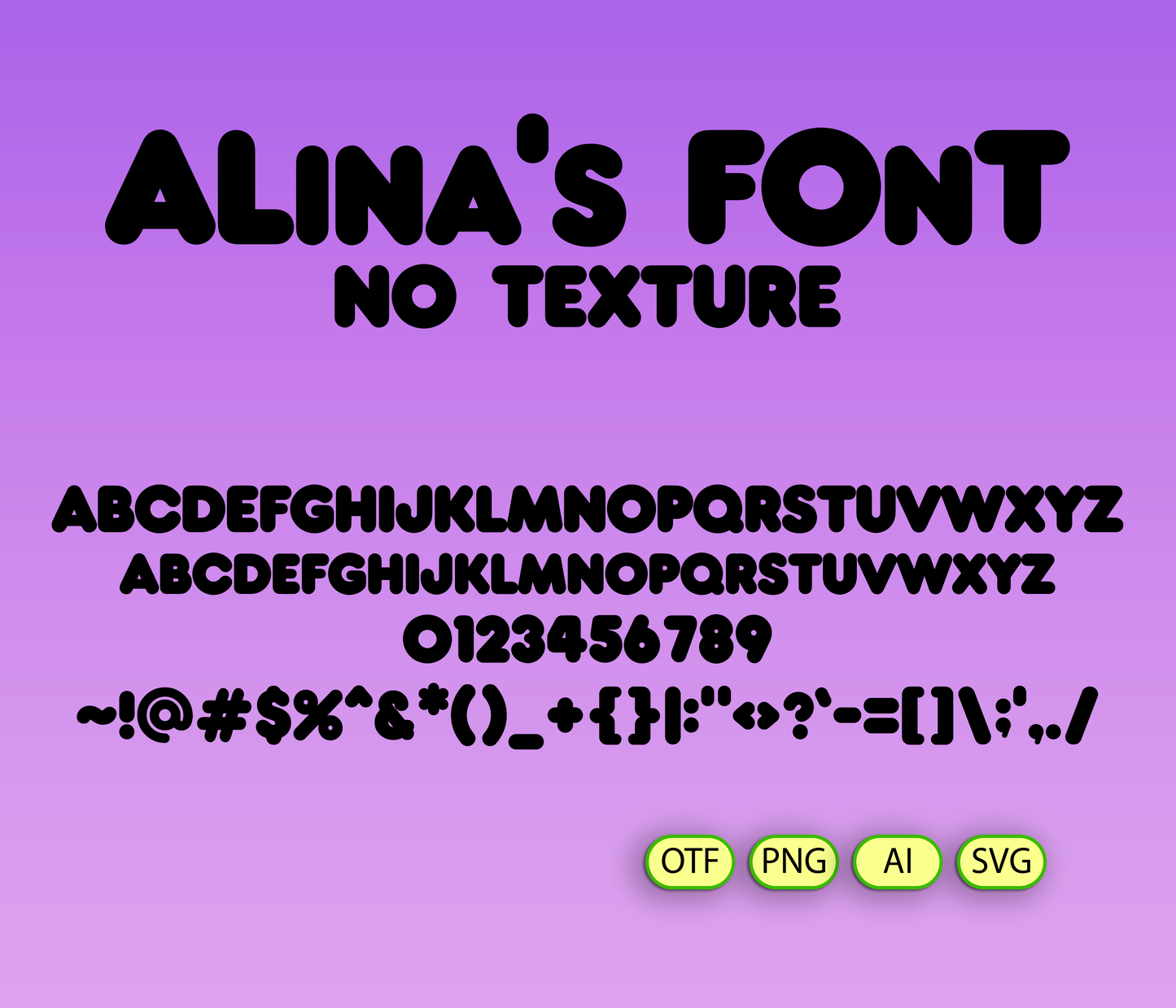
Clubhouse Adventure Font
Step into the cheerful world of badge-earning fun with our Clubhouse Adventure Font No Texture, capturing the essence of educational play and colorful animal friendship. Perfect for children's content creators, educational event planners, family-focused designers, and creative professionals, this font brings the warm, engaging spirit of preschool learning stories to your projects. Create eye-catching invitations, merchandise, or digital content with the joyful energy of achievement-based activity narratives.
Bold Typography for Educational Design & Child-Friendly Projects
Our Clubhouse Adventure Font No Texture features playful, stylized letterforms with smooth, clean surfaces reflecting the world of young learners and interactive activity settings.
- Event Promotions: Create eye-catching invitations, posters, and banners for children's parties, educational gatherings, and family events that capture the spirit of learning-based entertainment
- Merchandise Design: Perfect for t-shirts, posters, stickers, and accessories that showcase the cheerful aesthetic of achievement and discovery themes
- Digital Media: Enhance websites, blogs, and social media with friendly headers and graphics that express the joy of educational adventures
- Creative Content: Add authentic flair to children's illustrations, character designs, and creative projects inspired by badge-earning activity tales
- Personal Projects: Bring encouraging energy to scrapbooking, DIY crafts, and home decor inspired by the world of playful learning characters
Our font pays tribute to the world of educational activity stories and preschool animation, empowering your projects with its warm and engaging spirit. Whether crafting children's materials, designing family-themed products, or adding a playful touch to personal projects, this font communicates the vibrant essence of learning-based entertainment. Ready to inject cheerful discovery into your creations? This font is your key to eye-catching, impactful design.